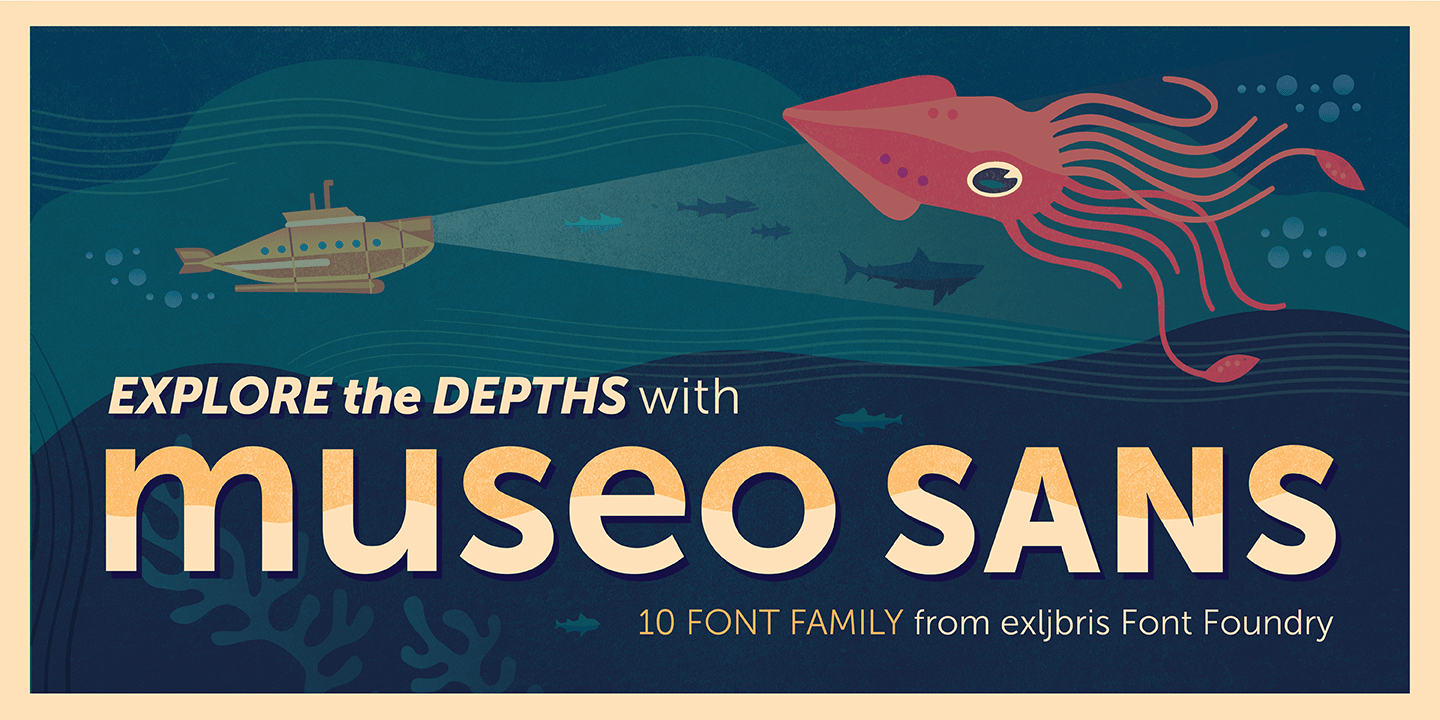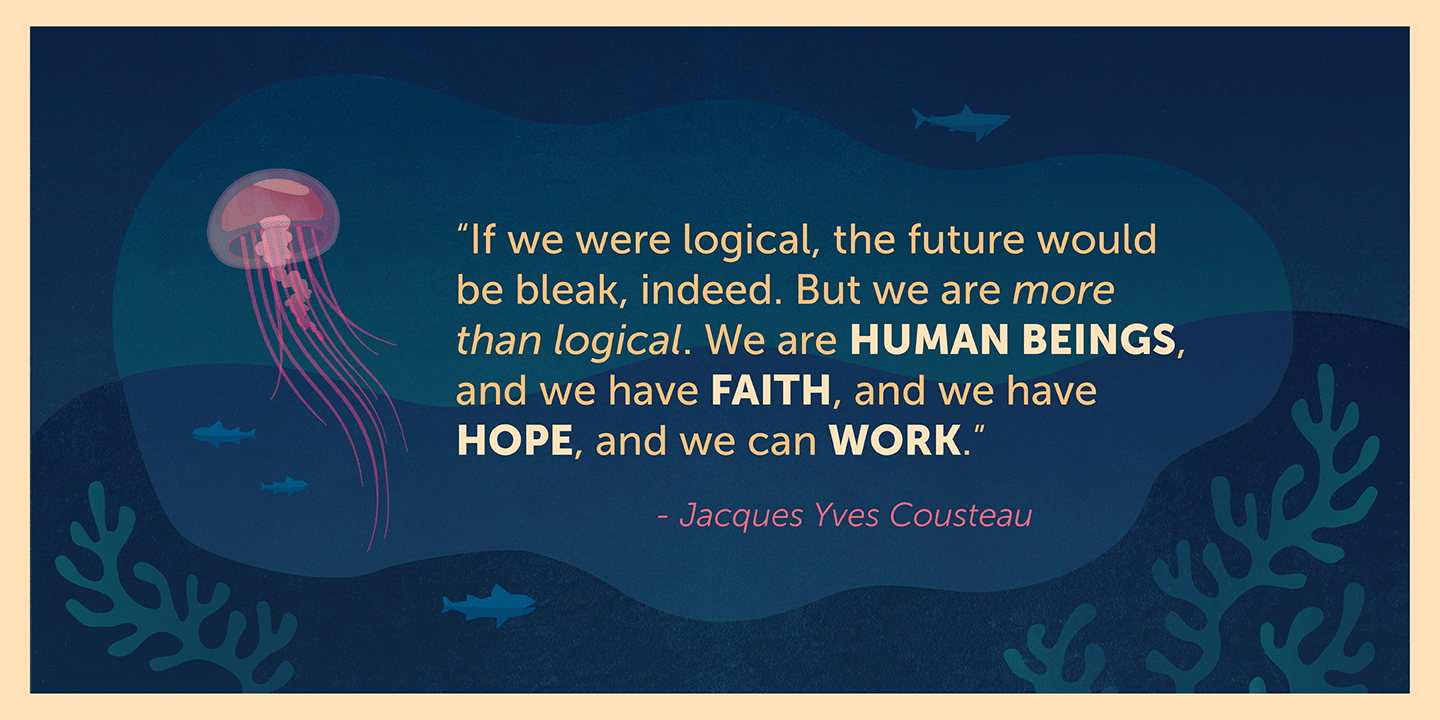
About Museo Sans
Museo Sans is based on the well-known Museo. It is a sturdy, low contrast, geometric, highly legible sans serif typeface very well suited for any display and text use. This OpenType font family offers also support for CE languages and even Esperanto.…